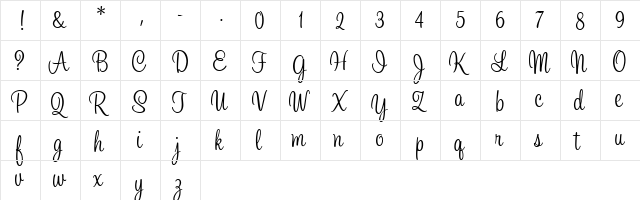
SweetheartScript-limited Regular
| Foundry | Typadelic Fonts |
| Designer | Ronna Penner for Typadelic Fonts |
Design Context for SweetheartScript-limited Typeface
SweetheartScript-limited brings a calligraphic fluidity to the page — its connecting strokes and expressive curves give it an unmistakably human quality.
Font Pairing: Combine SweetheartScript-limited with a simple geometric sans for maximum contrast — the tension between flowing curves and clean structure is a classic typographic pairing.
Pro Tip: Pair SweetheartScript-limited with a clean sans-serif for supporting text. The contrast between fluid script and geometric structure creates an elegant typographic hierarchy.